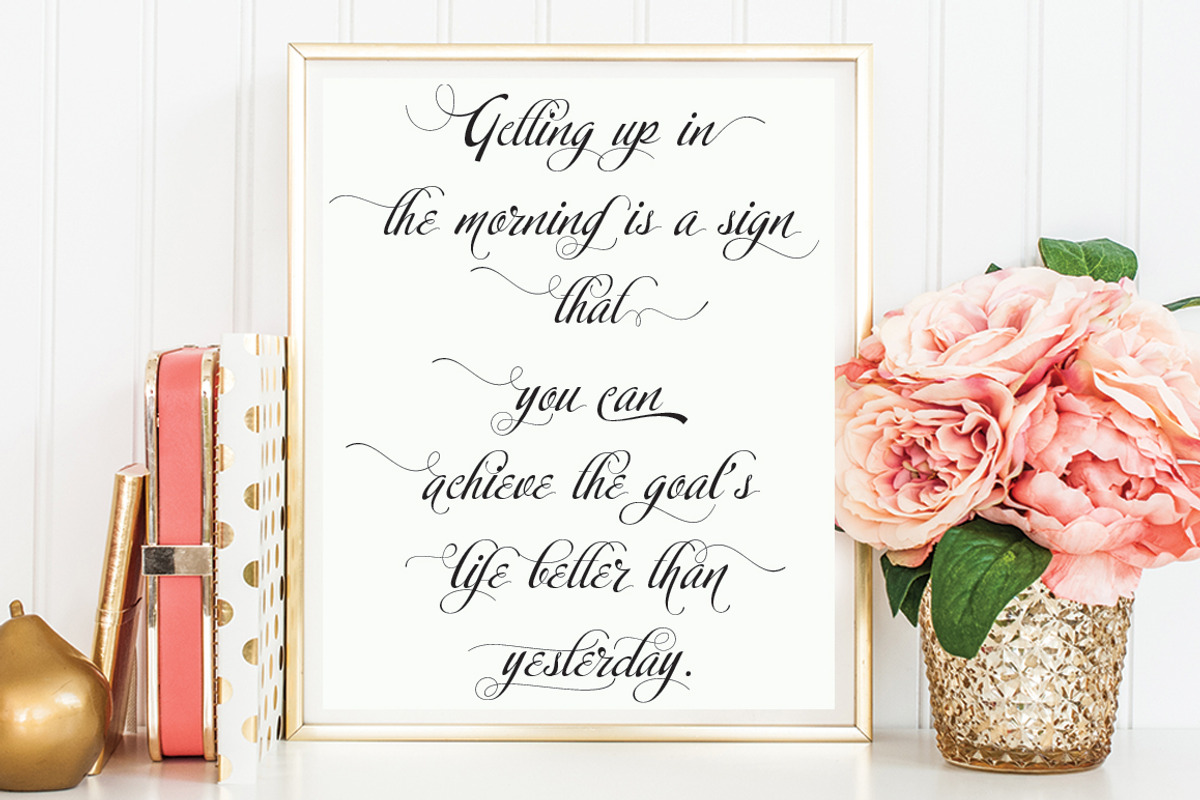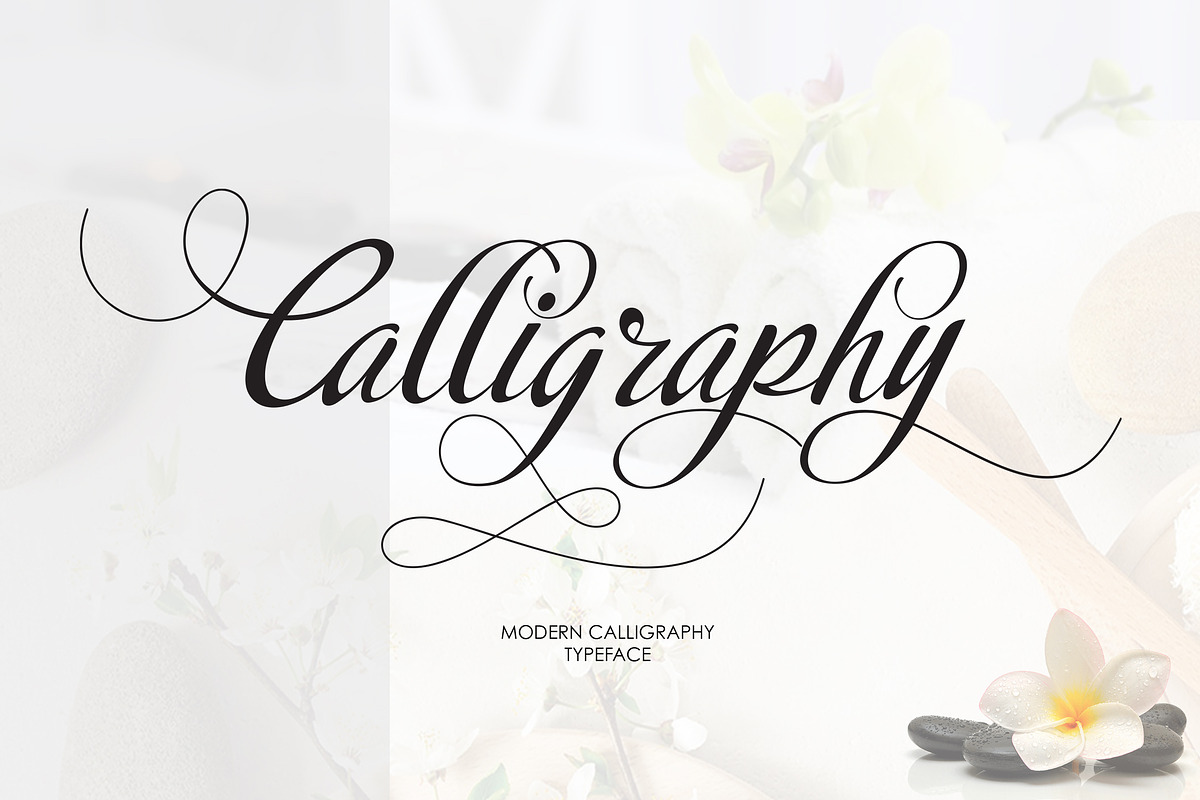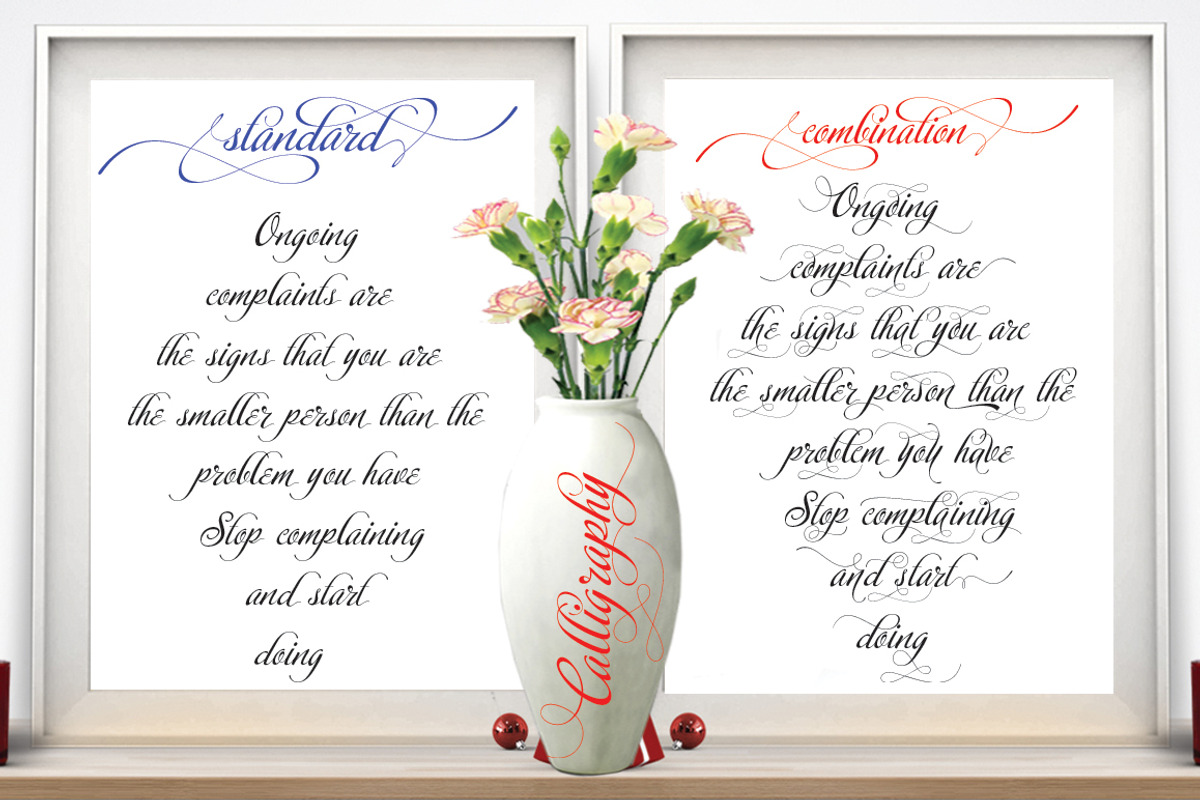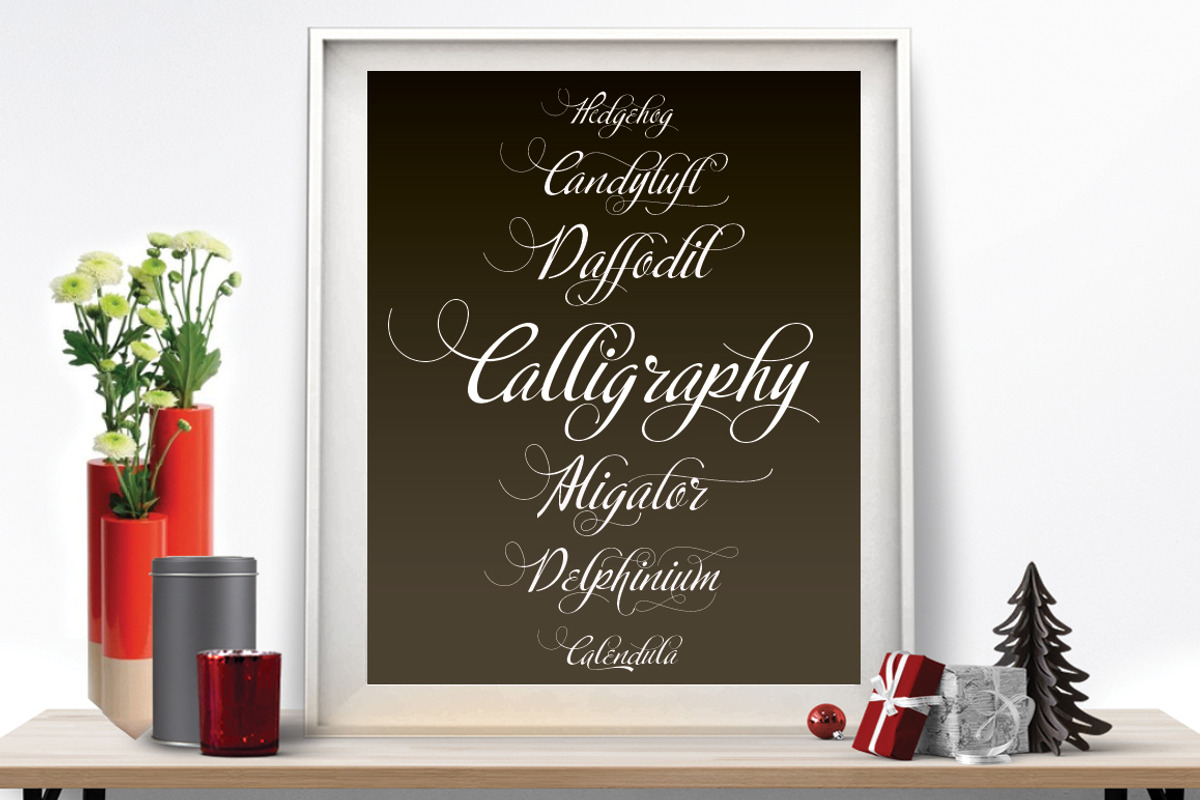
Calligraphy Script
Calligraphy script Is a hand calligraphy, smooth, modern and clasik, calligraphy wavy, which was created to meet the needs of your next design project, hopefully you like it. Calligraphy script, Can used for various purposes. such as the title, signature, logo, correspondence, wedding invitations, letterhead, signage, labels, newsletters, posters, badges, etc.
Calligraphy script features 737 glyphs and has given PUA unicode (specially coded fonts), can be accessed easily with the character map, can be accessed in full by the lovers of letters or artisans to increase career in the design world.
- Contextual Alternates
- Standart ligatures
- Stylistic Sets and